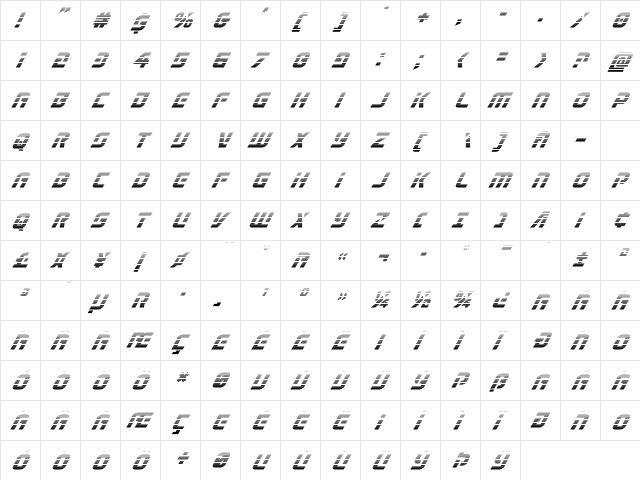
Legio Sabina Gradient Italic Italic
Design Context for Legio Sabina Gradient Italic Typeface
Legio Sabina Gradient Italic is a composed and adaptable typeface that performs quietly and consistently across a wide range of design contexts. The slanted form adds forward momentum and visual energy.
Pro Tip: Use Legio Sabina Gradient Italic for emphasis, pull quotes, and subheadings where its slanted energy can add rhythm to the layout.